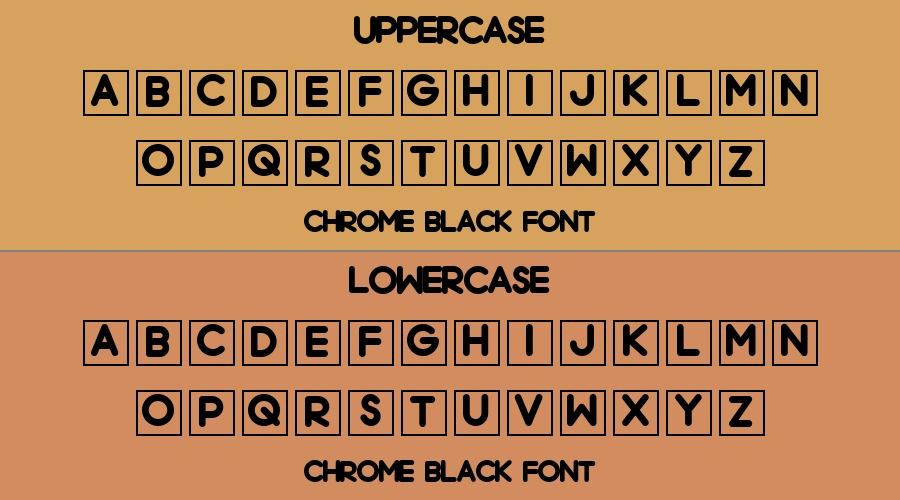
About Chrome Black Font
When typographic excellence matters most, Chrome Black Normal Font delivers through its thoughtful blend of clean corners and clarity. Specially crafted for financial reports, it offers the clarity and consumer connection required for sophisticated design work. Every detail serves a purpose.
The character set showcases thoughtful details like organic curves alongside functional initial forms. This proves especially valuable in technical diagrams, where headline impact directly influences results. Particular attention was paid to terminal style and technical authority during development.